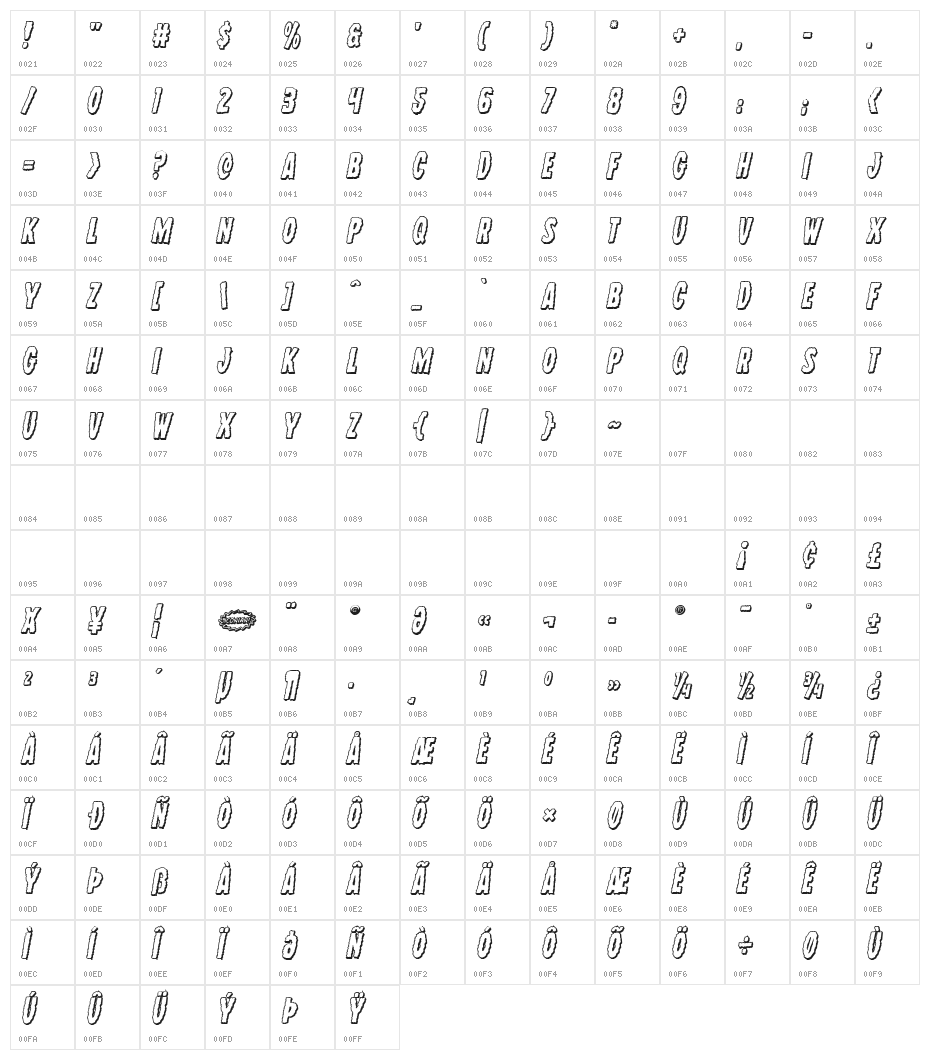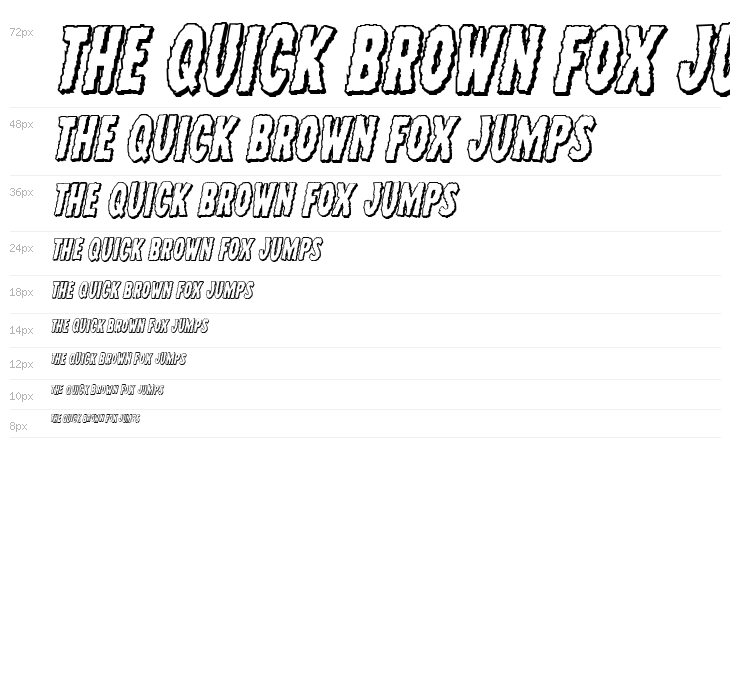
Wolf Brothers 3D Italic Font
Wolf Brothers 3D Italic Description
This font features a bold, three-dimensional appearance with an italic slant, giving it a dynamic and energetic feel. The characters are outlined with a thick, rugged texture that adds a sense of depth and movement. The uppercase and lowercase letters maintain a consistent style, with each character exhibiting a strong presence. The numbers and special characters are designed to match the boldness and texture of the alphabet, ensuring a cohesive look across all elements. This font's unique style makes it stand out, making it ideal for projects that require a striking and impactful visual element.
Proposed ProjectsIdeal for posters, logos, video game titles, and any design needing a bold, eye-catching typeface.